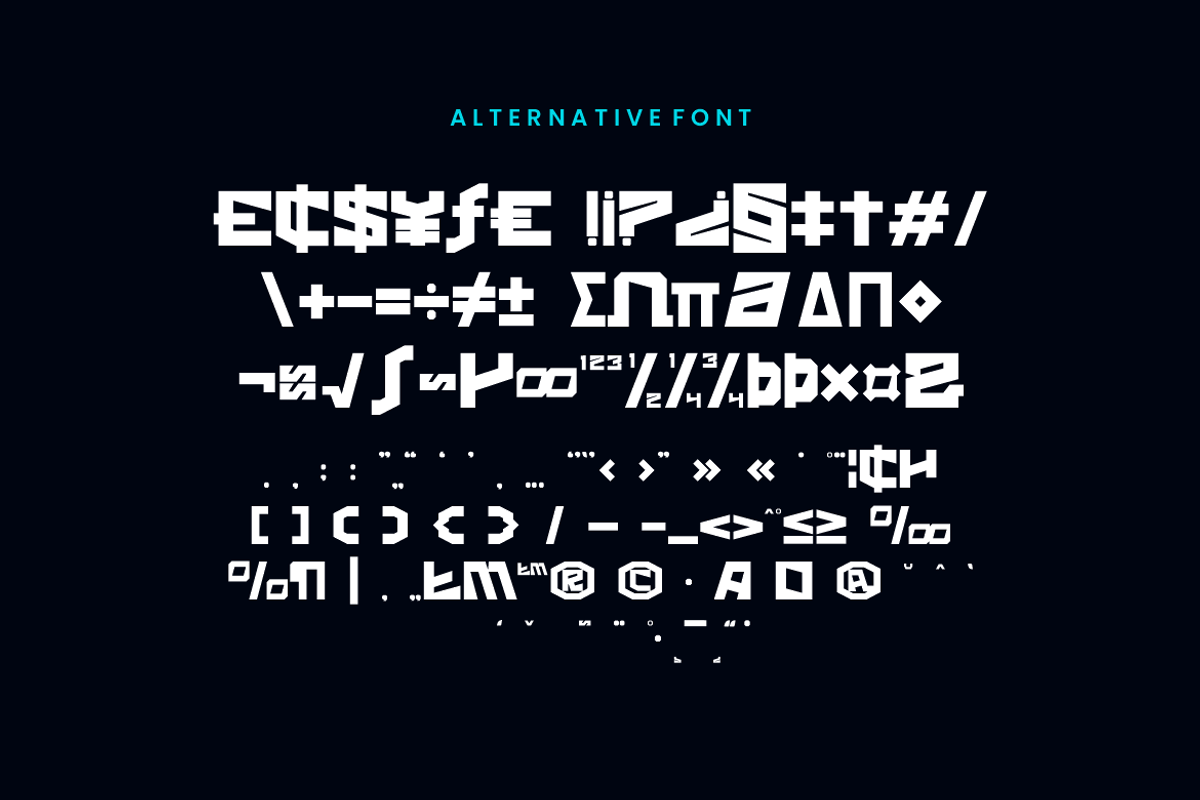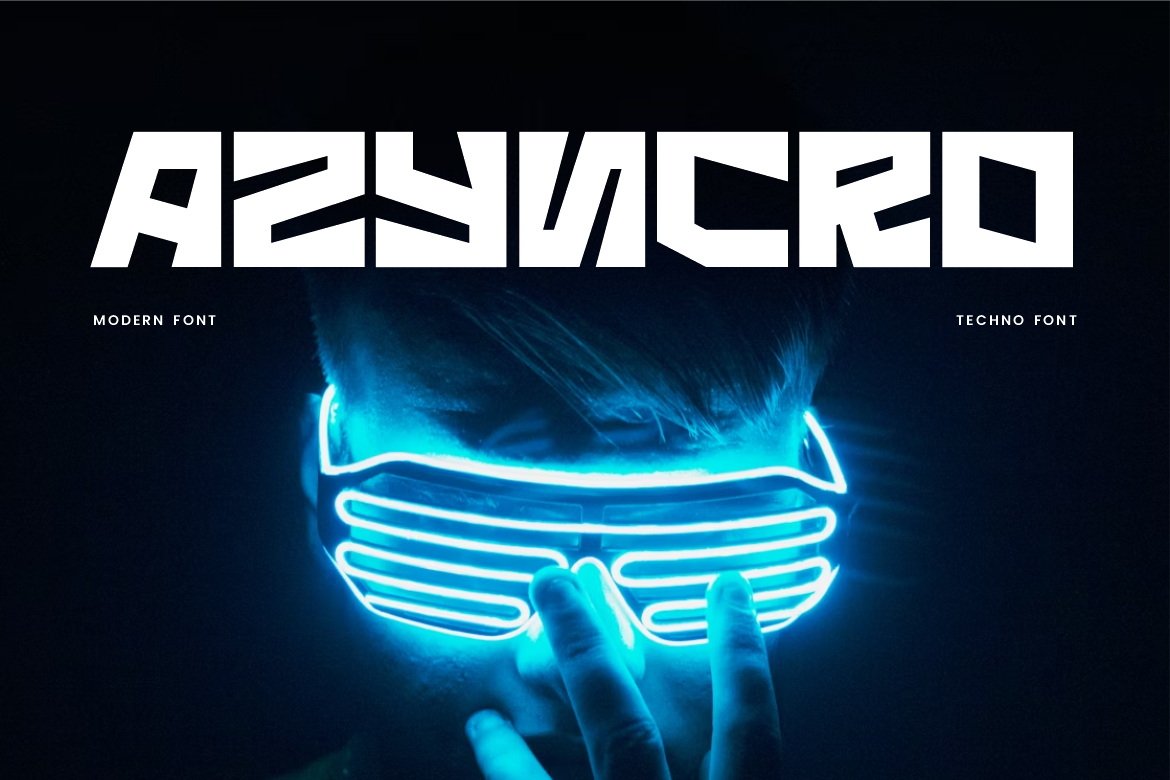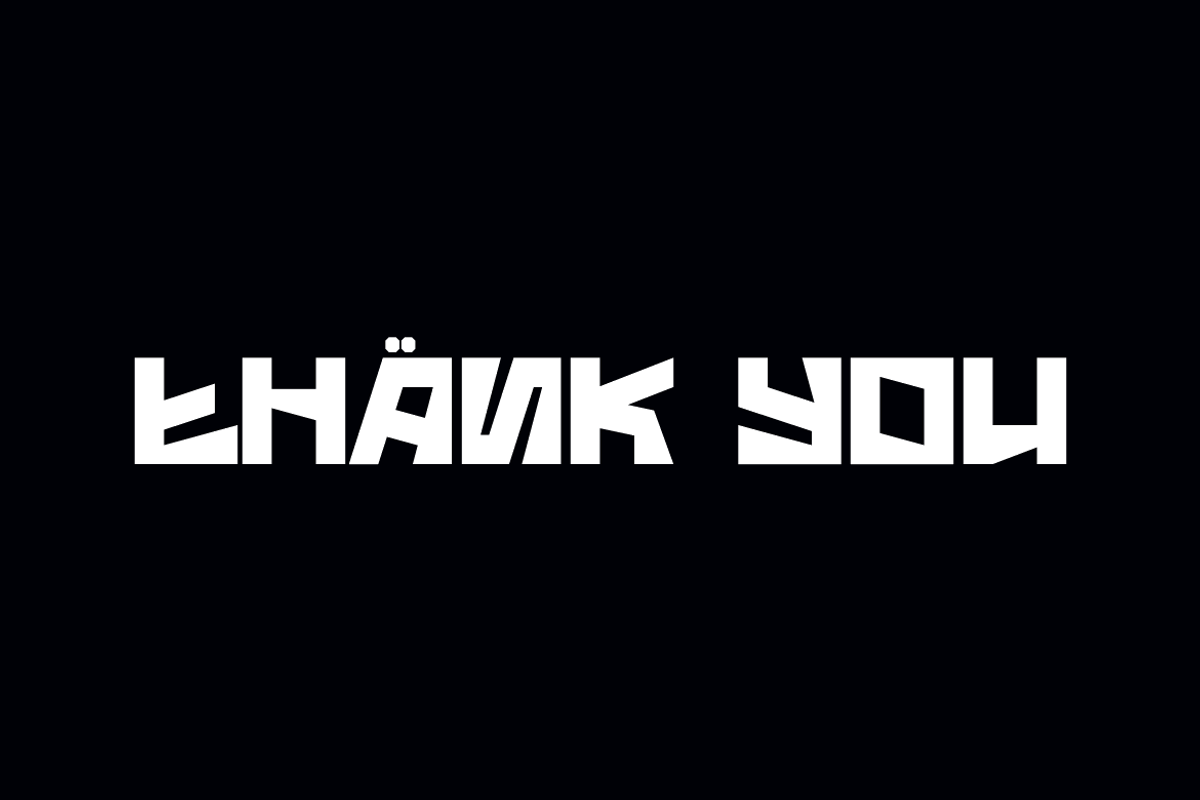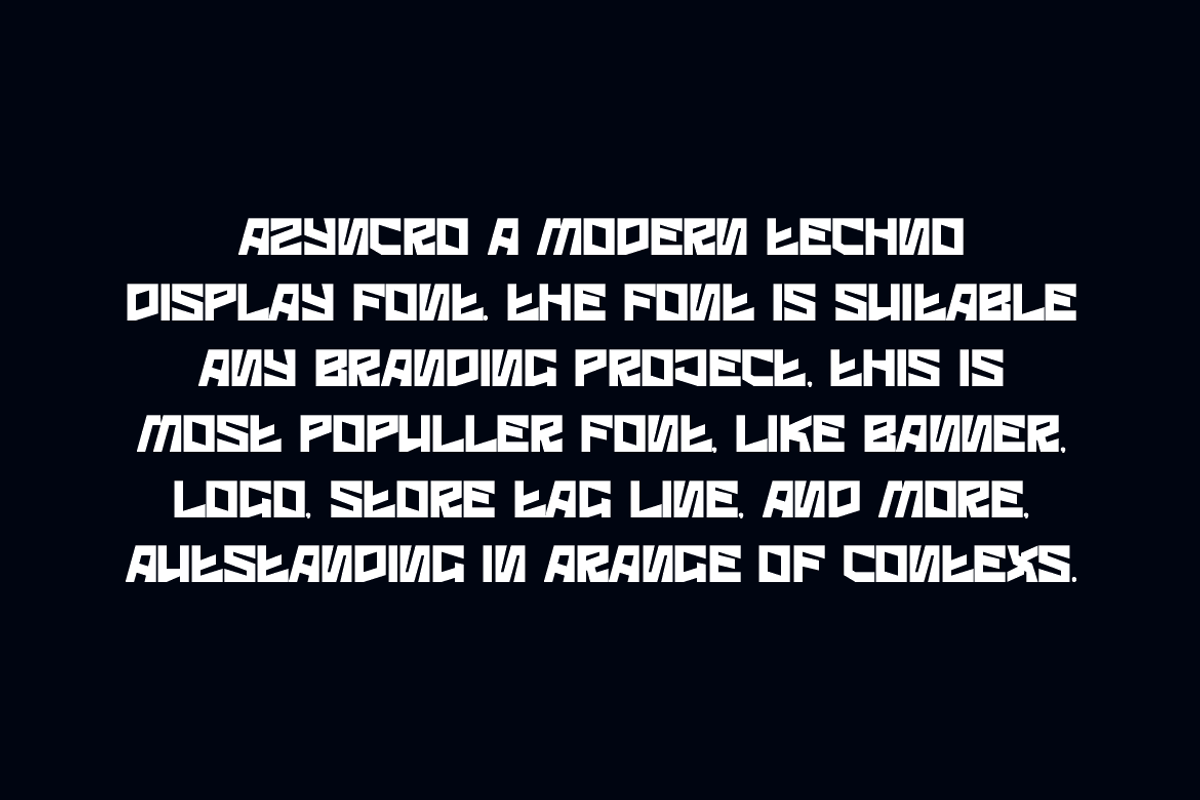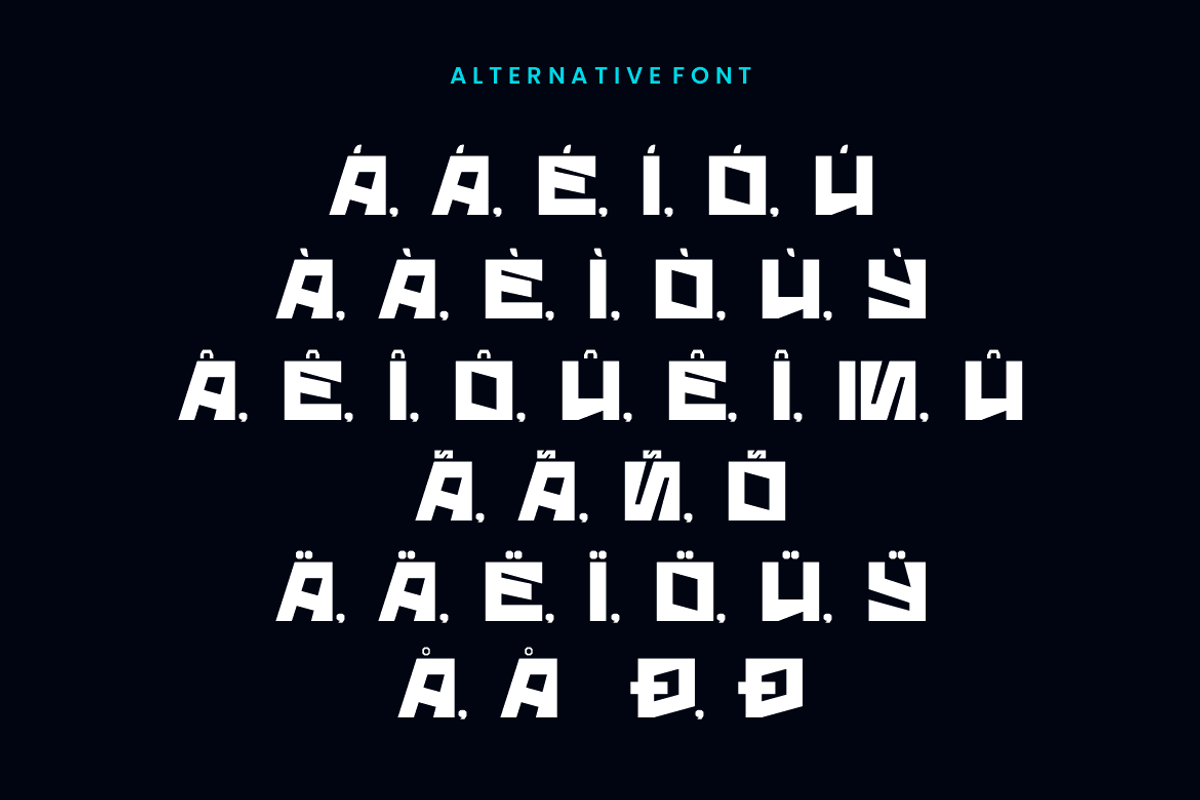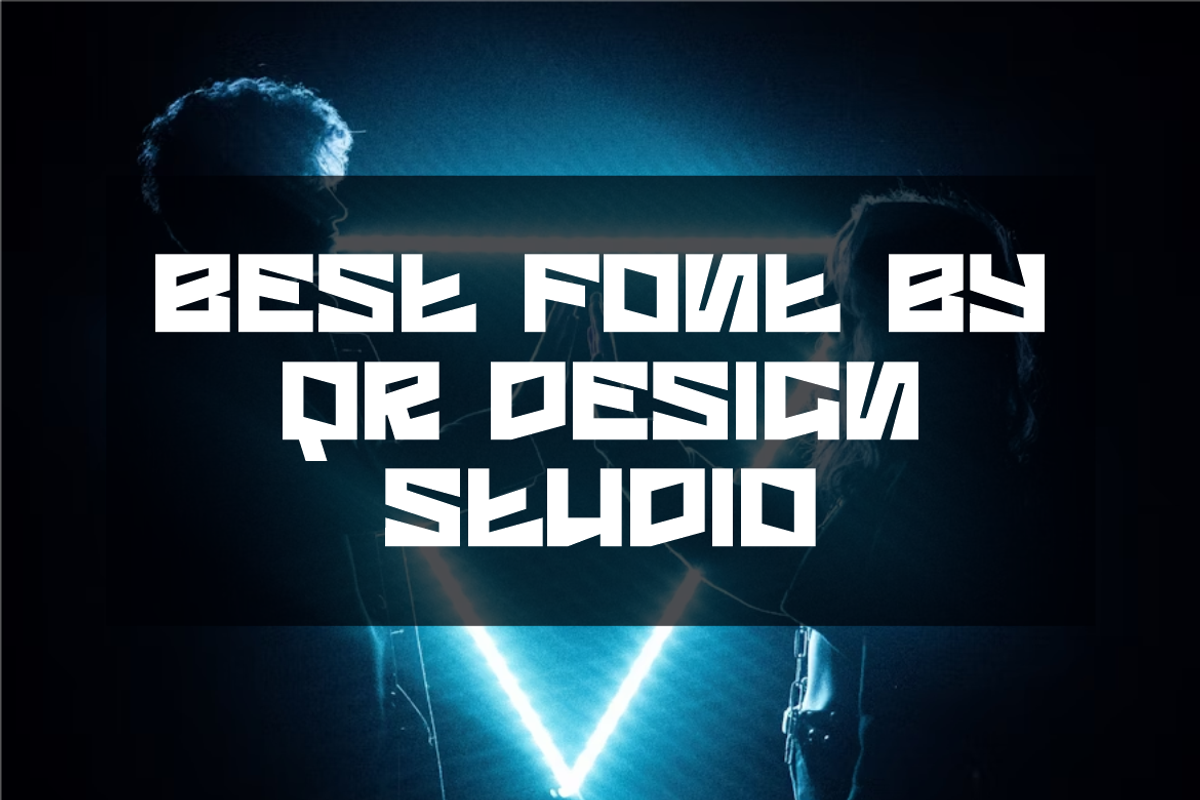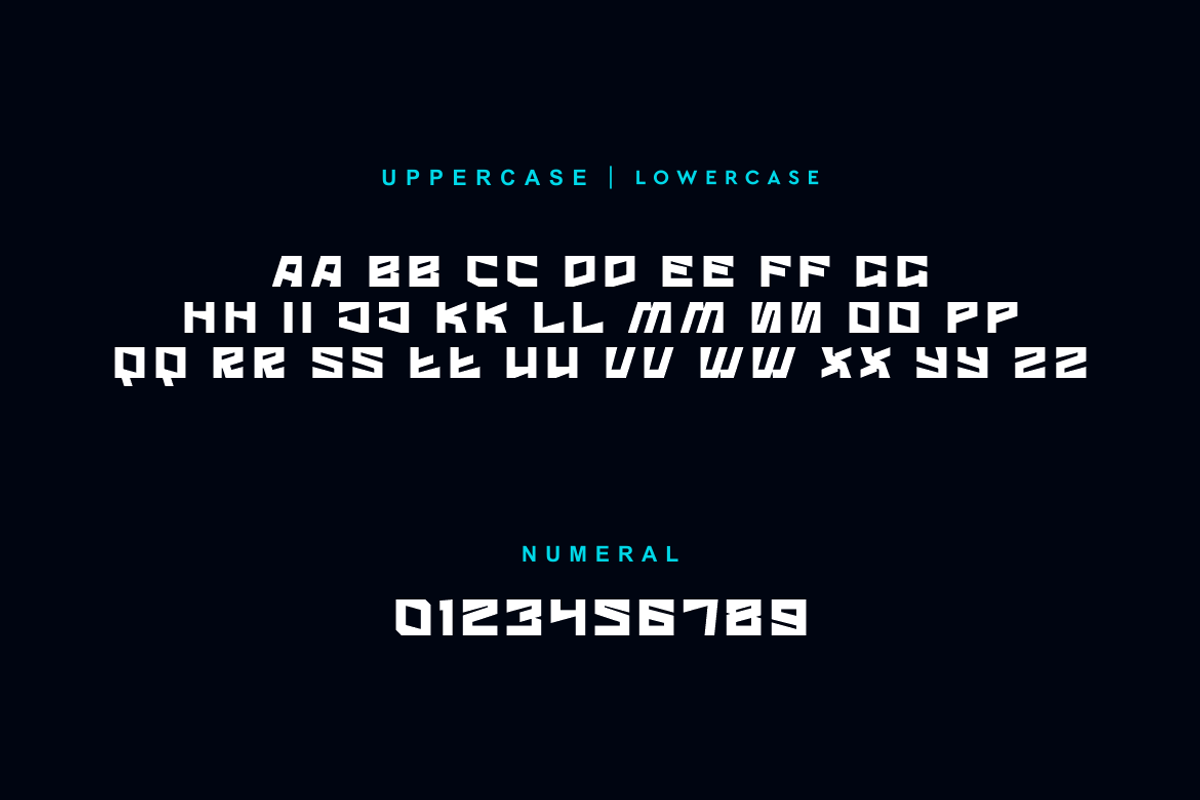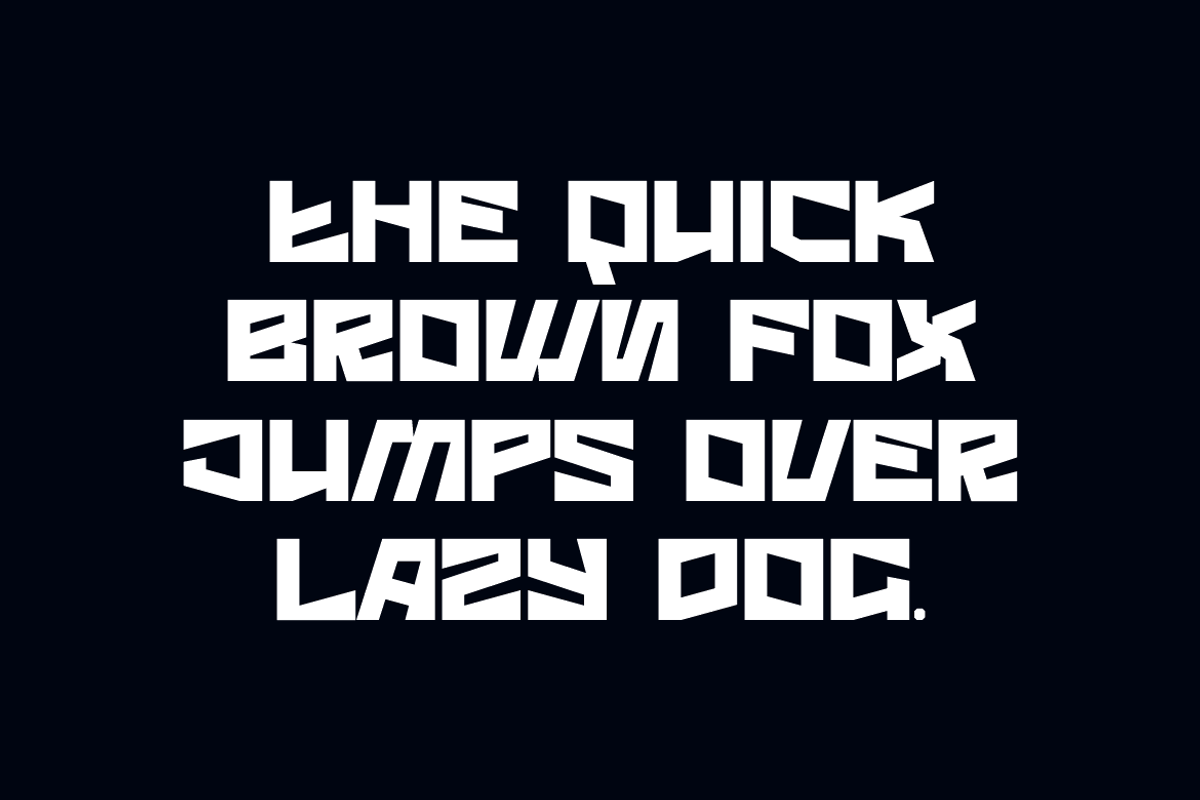
Azyncro - Digital Font
Azyncro Font is a bold and authentic display font. The font is suitable for any branding project like poster, logo, sport, and many more. Outstanding in a wide range of contexts.